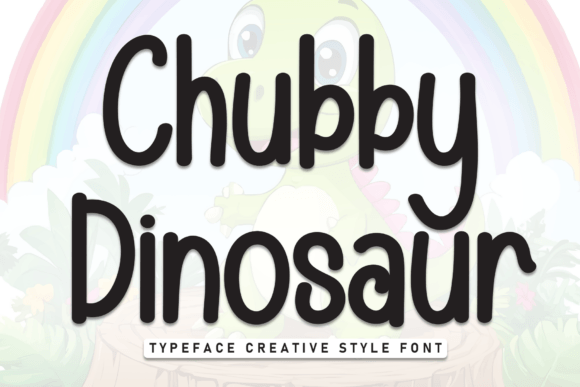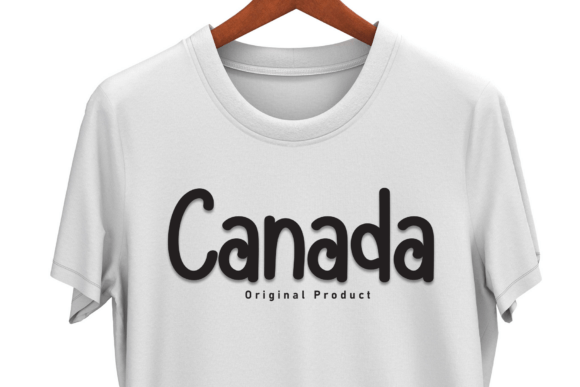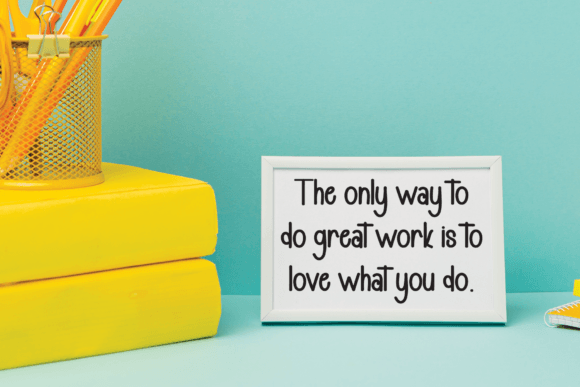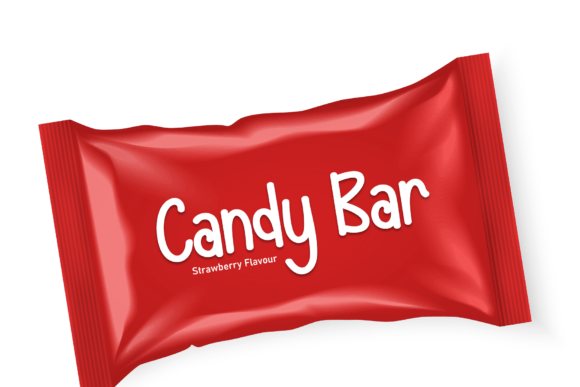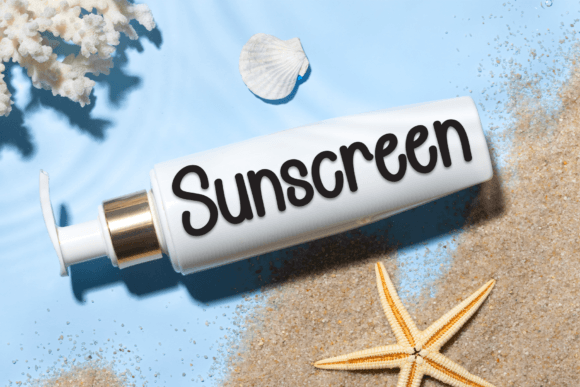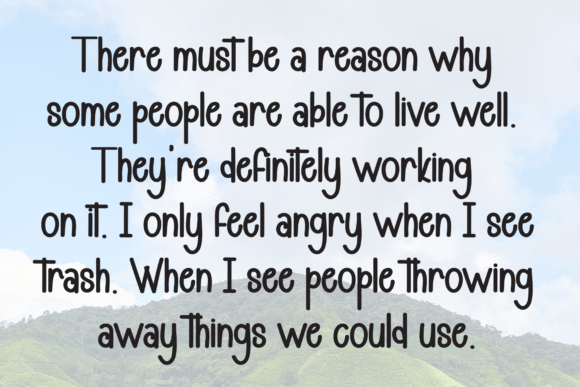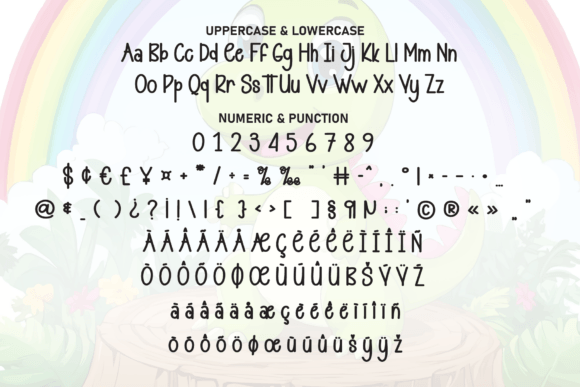
Embracing Whimsy in Design: Introducing the Chubby Dinosaur Font
Who hasn’t experienced that moment of pure creative bliss when a design concept clicks into place? The fonts align, the colors pop, and the entire project transforms before your eyes. For many designers, this moment is the culmination of hours of experimentation and hard work, and it’s a truly magical feeling. But what if you could infuse that same magic into every design project you undertake?
Enter the Chubby Dinosaur Font, a delightful handwritten display font that brings a touch of warmth and whimsy to any design. Whether you’re crafting wedding invitations, greeting cards, or simply want to add a playful twist to your branding, this enchanting script is the perfect companion. With its joyous character and irresistible charm, the Chubby Dinosaur Font is an invaluable asset for designers seeking to add a light-hearted touch to their creations.
Chubby Dinosaur Font Key Features
- Unique Characteristics: The Chubby Dinosaur Font features a distinctive, playful design with rounded edges and a soft, childlike feel, making it perfect for use in children’s books, educational materials, and other applications where a friendly tone is desired.
- Character Set: The font includes a comprehensive character set, including uppercase and lowercase letters, numbers, punctuation marks, and special characters, ensuring that designers have all the necessary tools to create engaging and effective content.
- Style Variations: The Chubby Dinosaur Font offers several style variations, including Regular, Bold, Italic, and Bold Italic, allowing designers to add depth and emphasis to their text.
Designer Review: Chubby Dinosaur Font
At first glance, the Chubby Dinosaur Font is a playful and fun addition to any design project. ✨ Its unique, rounded shapes and soft edges evoke a sense of friendliness and approachability. It’s perfect for use in children’s books, educational materials, or even branding for family-friendly businesses.
- Fun and playful personality
- Soft, rounded shapes that are easy on the eyes
- Good for use in children’s materials or family-friendly branding
However, there are a few limitations to consider. ⚠️ The font can appear somewhat childish or immature in certain contexts, which may not be suitable for more professional or sophisticated designs. Additionally, the font’s rounded shapes can make it difficult to read in certain font sizes or at a distance.
- Can appear childish or immature in certain contexts
- Rounded shapes can make it difficult to read in certain font sizes or at a distance
Overall, the Chubby Dinosaur Font is a great choice for designers looking to add a playful touch to their projects. While it may not be suitable for every design, it’s a fun and creative option that can add personality to a wide range of projects.
Tips for Getting the Most Out of the Chubby Dinosaur Font
For best results, use the Chubby Dinosaur Font in bold or italic styles to add emphasis. You can also combine it with other fonts for a unique look. Experiment with different font sizes and colors to create visual interest.
The Chubby Dinosaur Font is perfect for children’s books, party invitations, and other playful projects. It’s also great for creating eye-catching headings and titles in any design project.